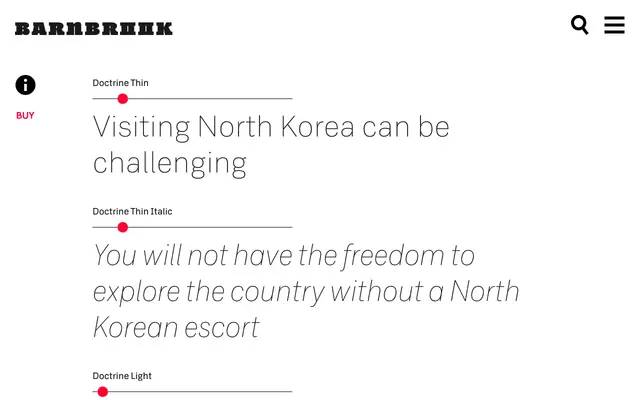
Doctrine Sans
A neo-grotesque sans in five weights with true italics, drawing on mid-century models while incorporating humanist and geometric alternate characters.
Developed from the unexpected starting point of North Korean airline livery, Doctrine Sans brings a contemporary warmth to the neo-grotesque tradition. Lighter weights carry a rounded, composed character, while heavier cuts rely on a large x-height, low contrast and squarer forms to deliver something more assertive. True italics across all five weights, a range of ligatures and multiple figure styles mark it out from the standard oblique-only neo-grotesque template.
The typeface is explicitly described as drawing from classic mid-century neo-grotesques, with a large x-height, low contrast and squarer heavier weights, while incorporating humanist and geometric alternate characters.